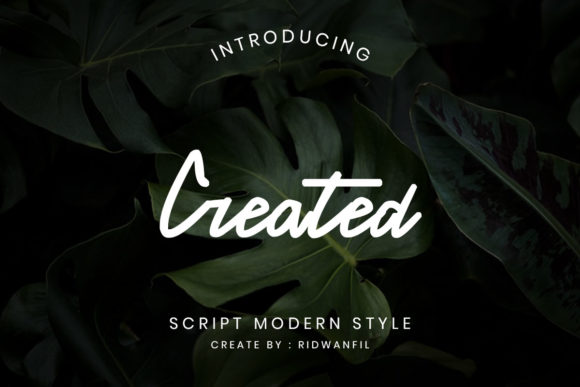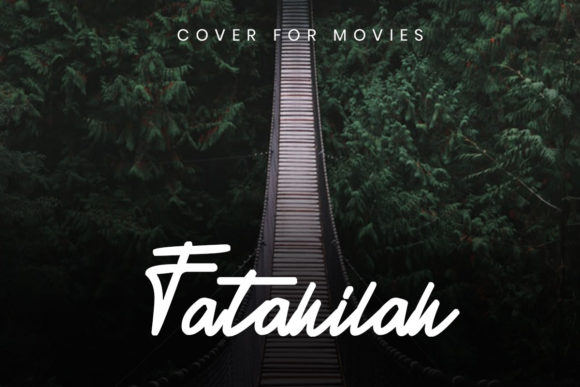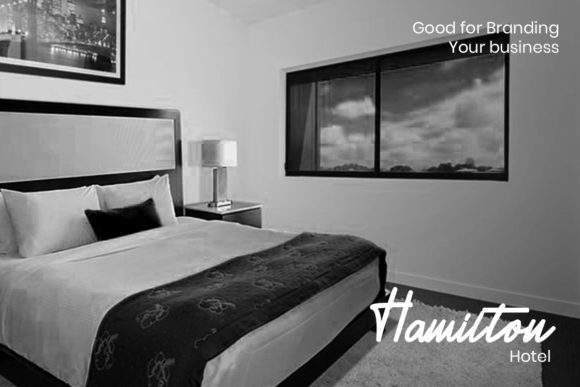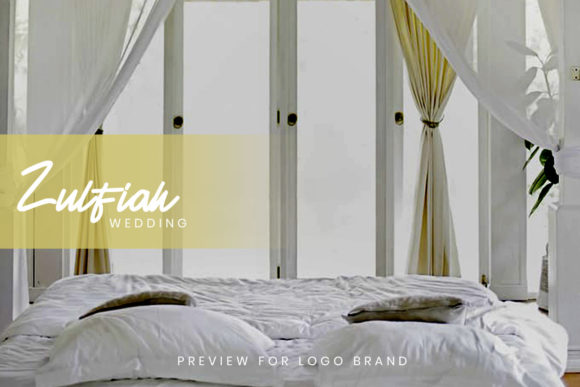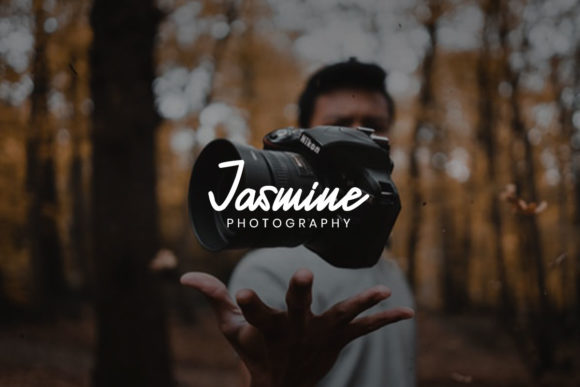
HomeScript FontsCreated Font Script Fonts Created Font FacebookXPinterestWhatsApp Created Font Poster 2 Created Font Poster 3 Created Font Poster 4 Created Font Poster 5 About Created Font Created is a beautiful script font featuring flowing characters. Get inspired by its contemporary coolness! DOWNLOAD ON CREATIVE FABRICAThis font is sold and delivered by Creative Fabrica. Font Canyon may earn a commission if you buy through this link. People also explored Play Font Vibe Sparkley Font Summerday Font Balrog Font Chorettan Font Oriella Font Christmas Domination Font Santa Christmas Font Christbenedict Font 292 0 TagsCreated Font Previous articleCaroline Bellish FontNext articleGardenia Font LEAVE A REPLY Cancel reply Comment: Please enter your comment! Name:* Please enter your name here Email:* You have entered an incorrect email address! Please enter your email address here Website: Save my name, email, and website in this browser for the next time I comment. Personal Use Free Happy Camping Personal Use Free Read more about this font Font Slice Personal Use Free Read more about this font Party Pooper Personal Use Free Read more about this font Shelly Personal Use Free Read more about this font BLOG Using Fonts in Digital Marketing: Tips to Strengthen Your Brand Identity In the realm of digital marketing, every visual element plays a crucial role in shaping a brand's identity, and fonts are no exception. The... Free Fonts Risk: Why Free Fonts Can Be Dangerous for Designers Top 10 Handwritten Fonts That Elevate Your Designs The 10 Best Handwriting Fonts to Add Personality to Your Designs